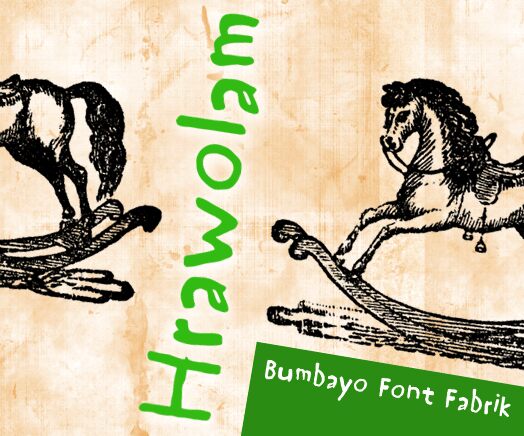
Hrawolam by Bumbayo Font Fabrik is a free brush display font with broad, uneven strokes and softly rounded forms. Its lively wobble comes straight from the brush.
A children's book cover is an especially good home for this lettering, since the loose shapes echo cheerful marker illustrations. The same handmade quality suits small toy packaging, playful event posters, and casual food branding. In product identity, the irregular letterforms can become part of a friendly mascot-driven label rather than plain naming.